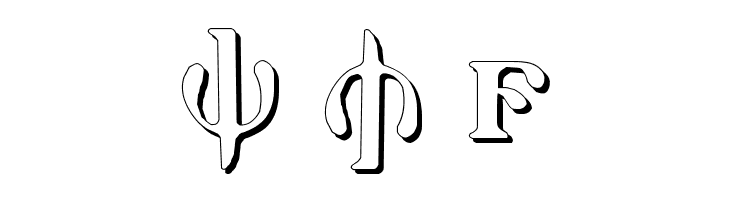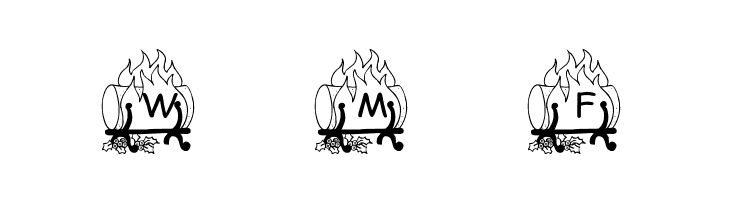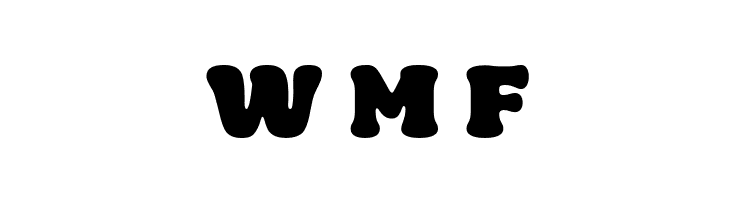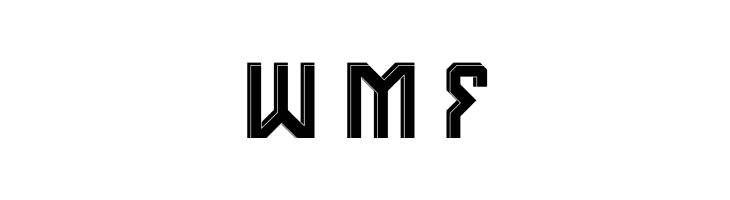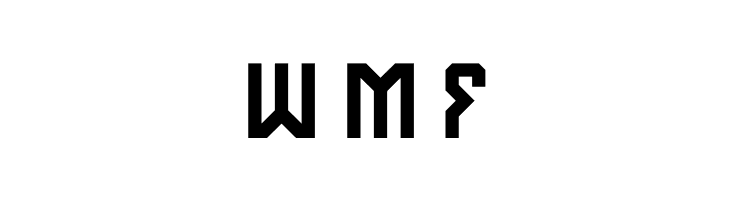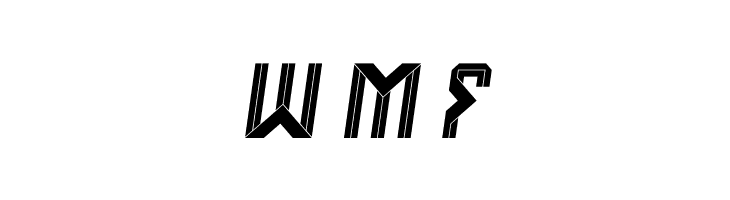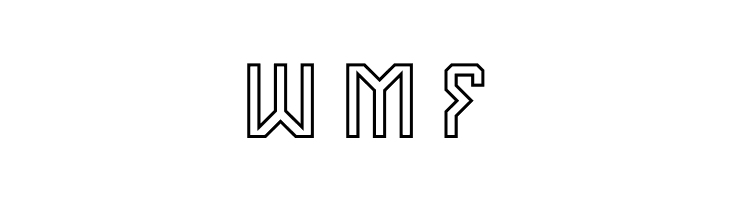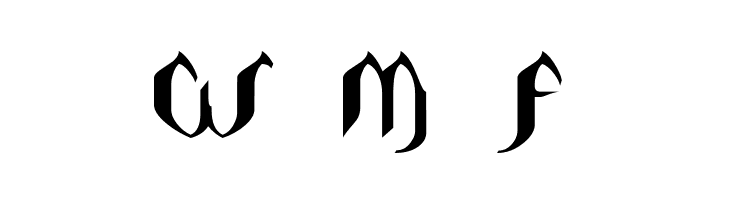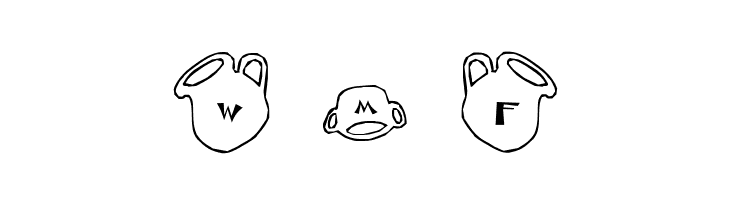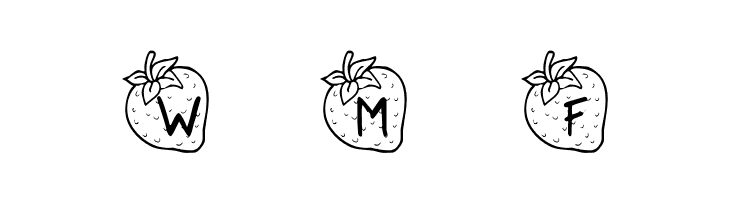
( Fonts by Almaz Studio )
( Fonts by Essentials Studio )
A bold, retro font with rounded, bubbly characters evoking a 1970s vibe.
( Fonts by Essentials Studio )
A playful, retro font with bold, rounded, and outlined letters.
( Fonts by Eko Bimantara )
A bold, rounded font with a playful 1970s vibe.
A bold, geometric font with angular lines and a modern, industrial feel.
A bold, geometric font with sharp, angular lines and a modern industrial feel.
A bold, geometric font with a futuristic and dynamic style.
A bold, angular font with a modern, geometric style.
A bold, geometric font with a three-dimensional shadow effect.
A bold, geometric outline font with a modern, futuristic style.
( Fonts by Insan Nurbahagia )
Hand-drawn dingbat font with garage sale item illustrations.
A bold, gothic font with skull-themed letters and dramatic flair.
( Fonts by www.fugit-tempus.de )
A dramatic blackletter font with ornate, gothic-inspired details.
A bold, shadowed font with medieval and gothic influences, featuring sharp angles and dramatic serifs.
( Fonts by Jeri Ingalls - littlehouse.homestead.com )
A bold, decorative font with unique cut-out patterns and playful style.
( Fonts by Levi Halmos )
A bold, geometric font with a modern and strong presence.
( Fonts by Dieter Schumacher )
A bold, gothic-style font with sharp, intricate details.